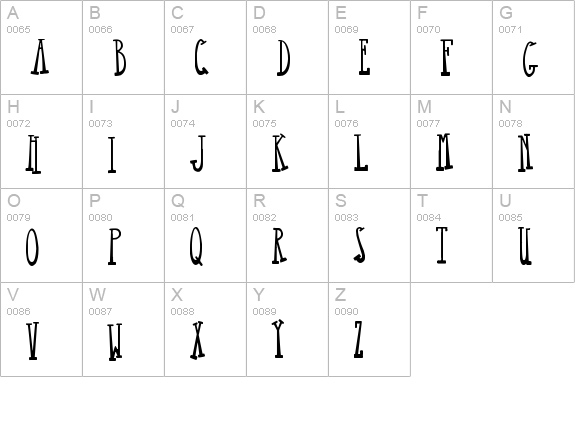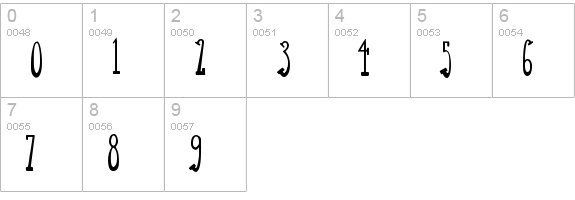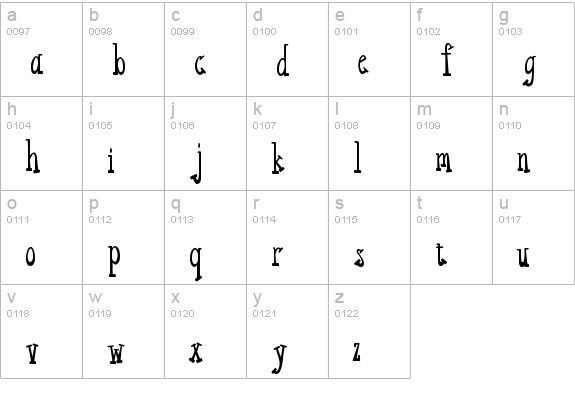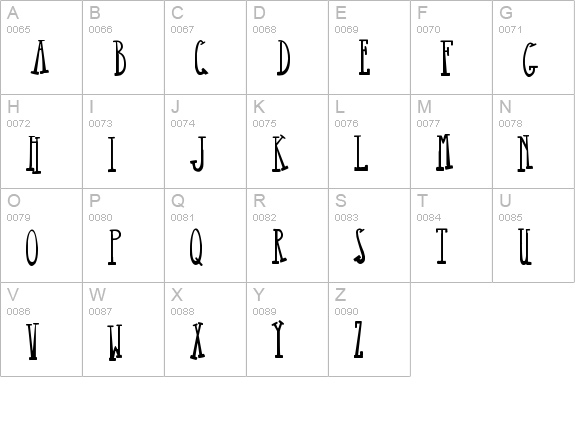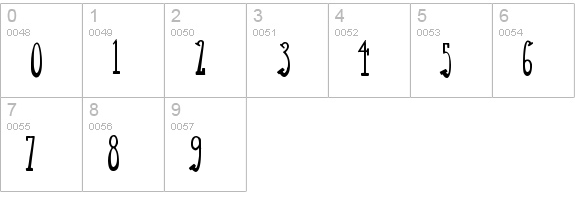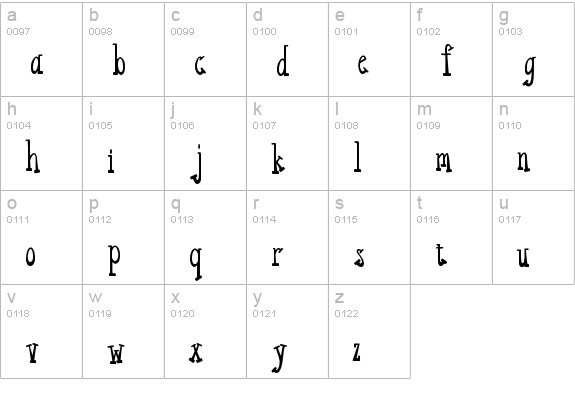
Carrington Font Details
Carrington font is a timeless and elegant typeface that exudes sophistication and class. Its sleek lines and delicate curves make it perfect for adding a touch of refinement to any design project. Whether you are creating invitations, branding materials, or signage, Carrington font will elevate your work to new heights. The best part about Carrington font is that it is completely free to download from FontsMarket.com. This means that you can access this stunning typeface without any cost, making it a valuable addition to your font library. With its versatility and charm, Carrington font is sure to become a go-to choice for all your design needs.